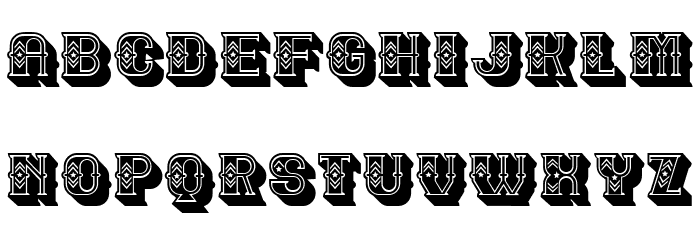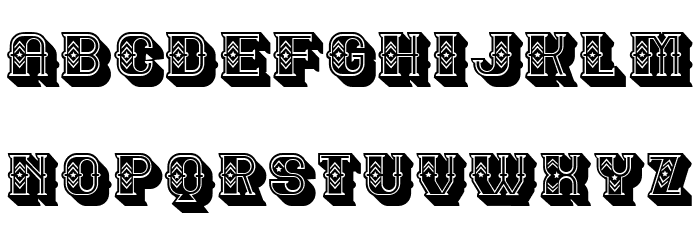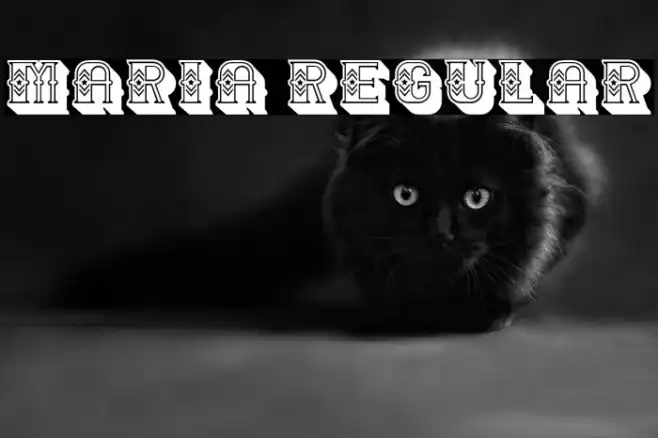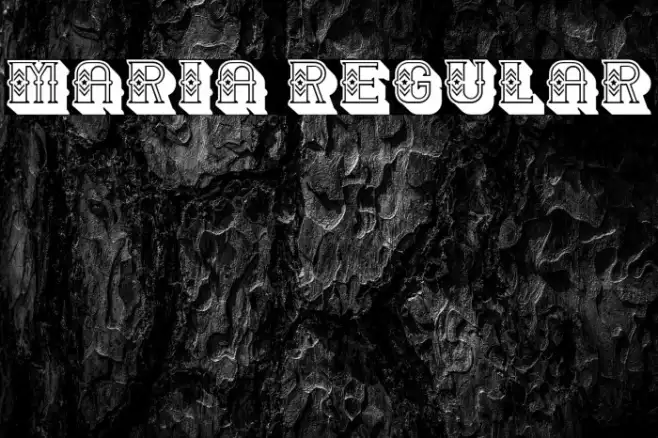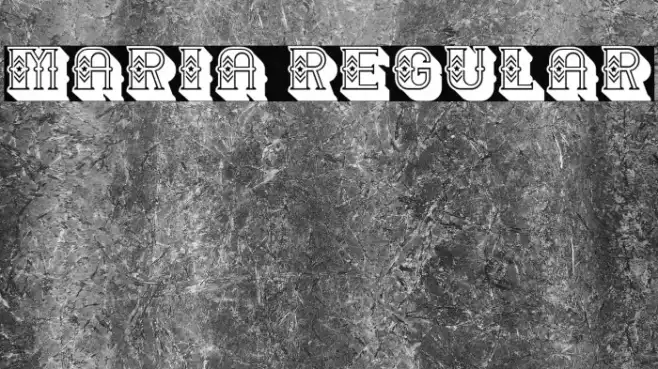
Maria Regular Font
This font is a bold and decorative typeface with a strong presence. Each character is intricately designed with ornamental details that give it a vintage and artistic flair. The letters are blocky and bold, featuring a shadow effect that adds depth and dimension. The intricate patterns within each letter make it stand out, ideal for eye-catching designs. The font's style is reminiscent of vintage signage or circus posters, with a playful yet sophisticated aesthetic. Its unique design elements make it suitable for projects that require a touch of elegance and creativity.
A bold, decorative font with intricate, vintage-inspired details.
- Font: Maria Regular
- Proposed Projects: Ideal for posters, logos, branding, and any design requiring a vintage or artistic touch.
- Overall Style: Vintage, Decorative